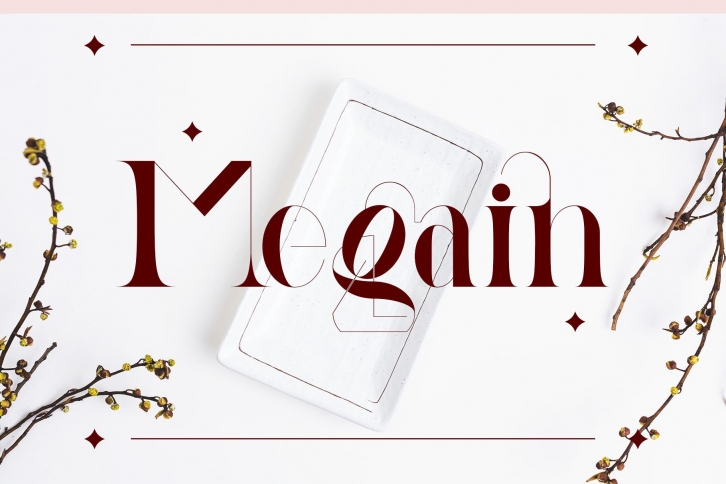
Megain is a distinct and elegant serif font. Fall for its ravishing style and use it to create gorgeous wedding invitations, beautiful stationary art, eye-catching social media posts, and much more!Â